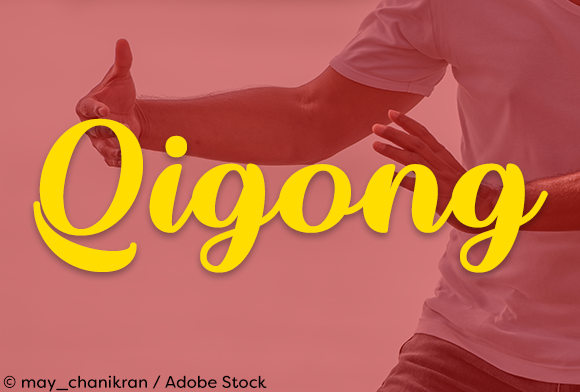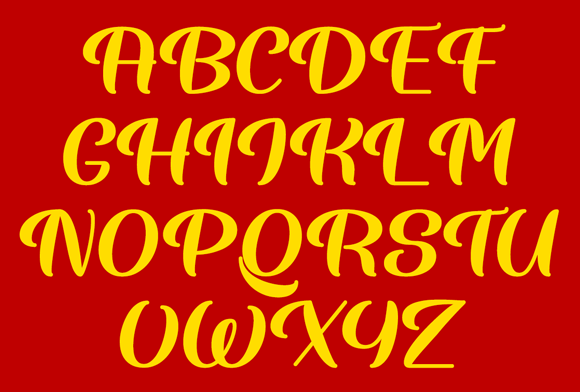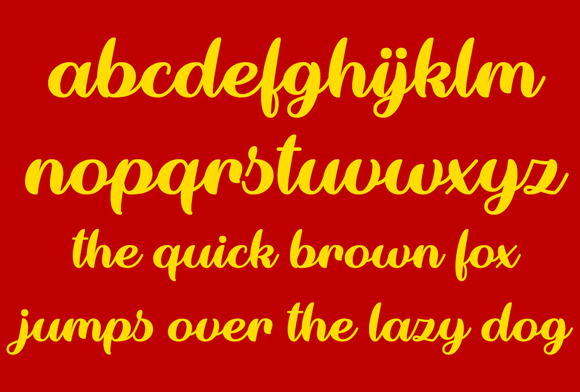
Wake the Warrior Font
About Wake the Warrior Font
Wake The Warrior is a bold, stylish typeface that will add a “kick” to your projects! Great for logos, product labels, posters, and so much more!